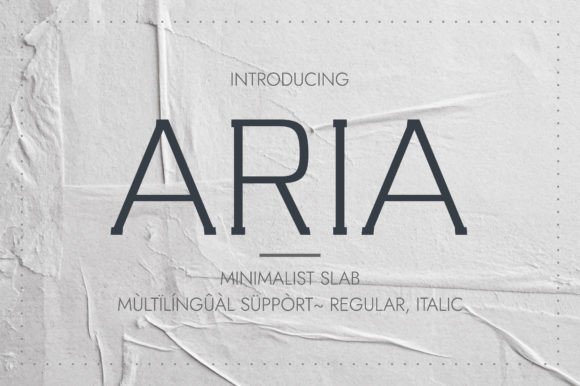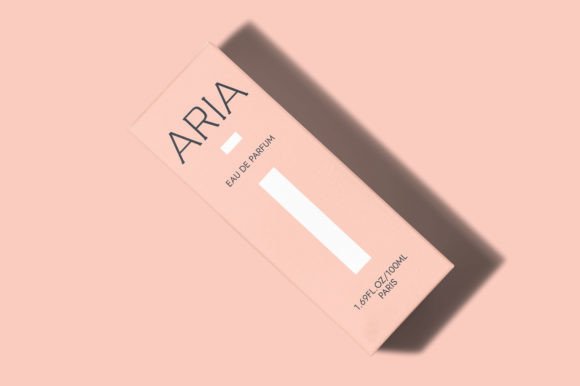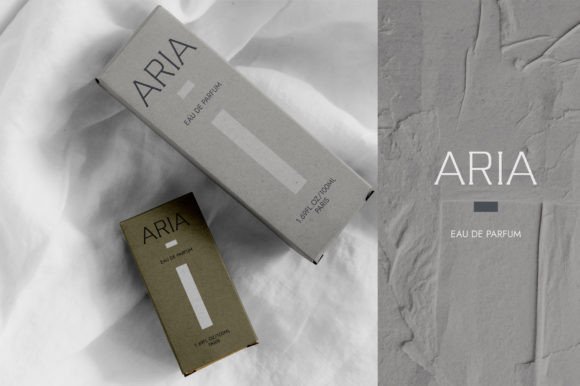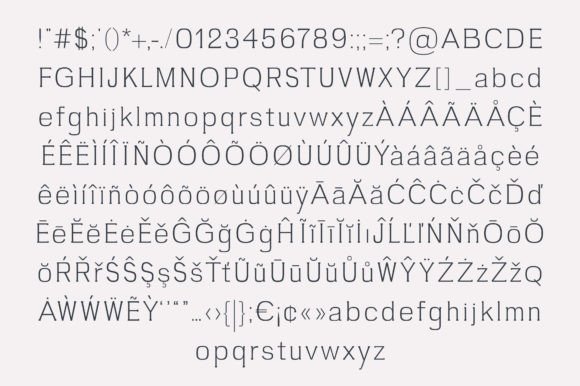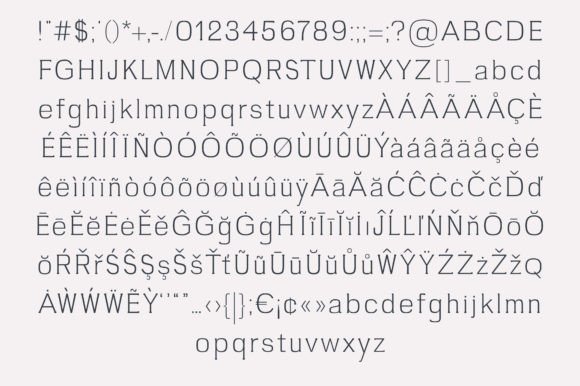
Aria
Aria: A Thin and Elegant Slab Serif Display Font
Aria is a thin, elegant, and minimalist slab serif typeface designed to be used as a display font. Moreover, it adapts wonderfully to various contexts, from perfume labels and cosmetics to magazine covers, posters, manifests, flyers, social posts, and fashion designs. When you use it in your creations, you’ll quickly notice how it becomes one of your favorite fonts.
Key Features of Aria
• Thin Design: Offers a delicate and refined look.
• Elegant Style: Brings sophistication to designs.
• Minimalist Approach: Features clean, uncluttered letterforms.
• Versatile Display: Works well across many design contexts.
Best Uses for Aria
Thanks to its unique characteristics, Aria works especially well for:
When using Aria in your designs, keep these tips in mind:
• Use for headlines or short text to show off its thin, elegant style.
• Try different sizes to highlight the font’s minimalist features.
• Pair with simple sans-serif fonts for body text to create balance.
• Experiment with spacing to enhance its refined appearance.
To sum up, Aria is an excellent choice for designers seeking a thin and elegant slab serif display font. Its minimalist approach makes it perfect for modern, sophisticated projects. Whether you’re working on beauty products, creating magazine layouts, or developing fashion-related content, Aria offers the perfect blend of elegance and simplicity.
Furthermore, Aria’s unique design allows it to shine in various contexts where refinement is key. For instance, from perfume labels to fashion designs, this font can lift your projects with its distinctive style. Also, its thin yet readable appearance works particularly well in designs that aim to convey luxury and sophistication.
In conclusion, Aria truly captures the essence of modern elegance in slab serif typography. Its versatility across different applications shows how it can fit various creative needs. Therefore, for those wanting to add a touch of refined charm to their work, Aria can enhance themed creations with its unique style. Ultimately, it’s an ideal choice for designers aiming to make a sophisticated, minimalist impact across a wide range of creative projects.